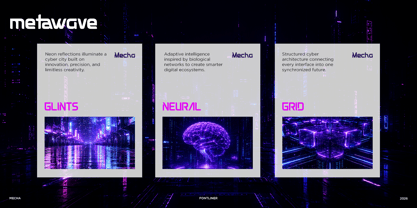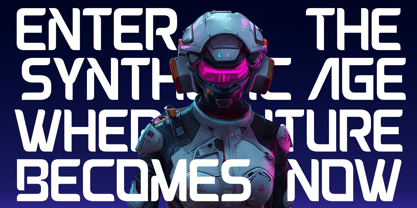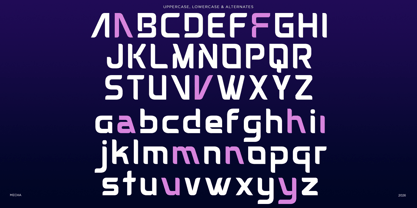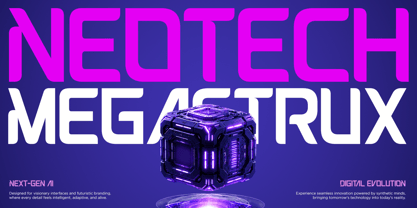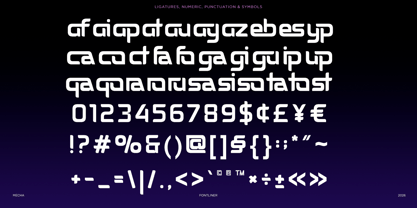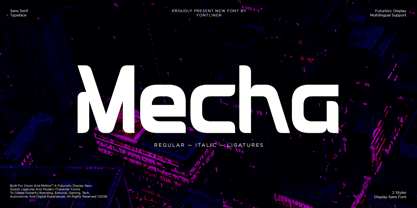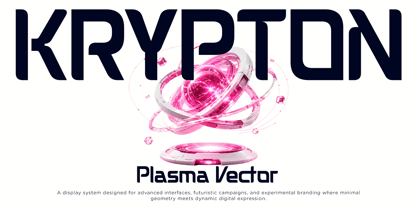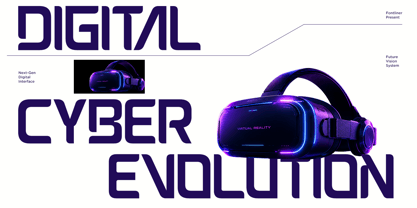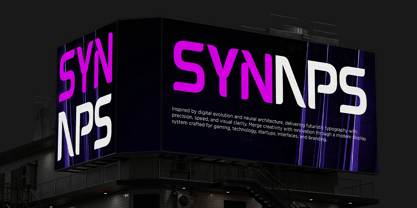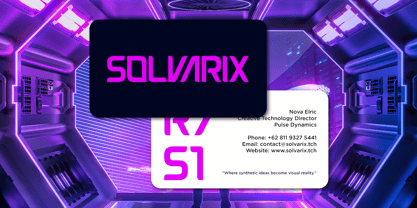
Mecha
by Font Liner
The Mecha Font Family was designed by Ghina Luthfiarieska and published by Font Liner. Mecha contains 2 styles and family package options. More about this family
Mecha is a futuristic display sans serif font inspired by cyberpunk aesthetics, artificial intelligence, robotics, and next-generation digital technology. Featuring geometric letterforms, rounded corners, and distinctive ligatures, it delivers a bold visual identity that feels modern, innovative, and highly recognizable.
Designed for creators who demand impact, Mecha is perfect for technology branding, gaming, esports, startup identities, UI/UX concepts, automotive projects, sci-fi posters, digital campaigns, product packaging, album covers, movie titles, and futuristic editorial layouts. Its clean construction and multilingual support make it a versatile choice for both digital and print applications.
The family includes Regular and Italic styles, allowing you to create dynamic headlines, logos, and branding systems with ease. Whether you're building a cutting-edge tech company or crafting immersive cyber-inspired visuals, Mecha delivers a powerful and memorable typographic experience.
• Regular and Italic Style
• Stylistic Alternates
• Stylistic Ligature
• Uppercase and Lowercase
• Number, Symbol, and Punctuation
Designers: Ghina Luthfiarieska
Foundry: Font Liner